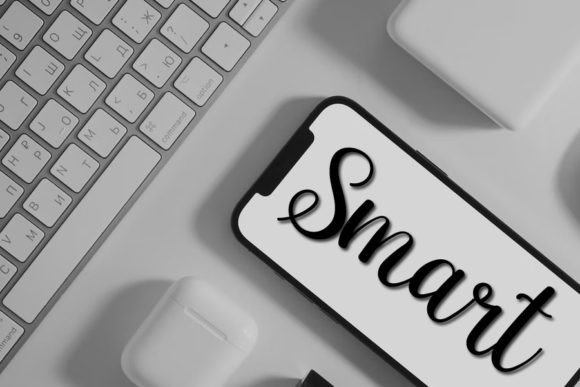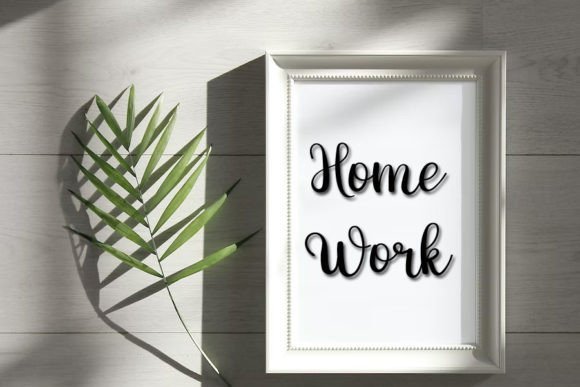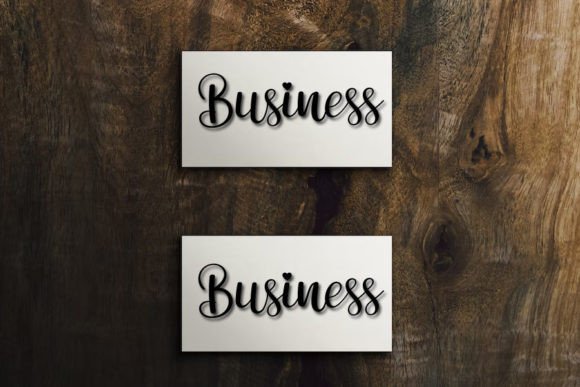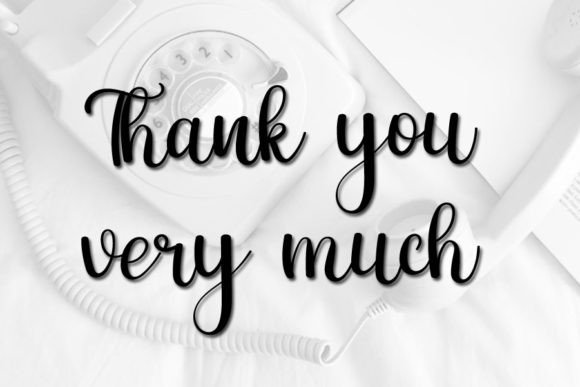
Have you ever been stuck on a design project, struggling to find the perfect font to bring your vision to life? We’ve all been there. It’s like searching for the missing piece of a puzzle, and suddenly, everything clicks into place. For me, that moment came when I stumbled upon Calling Font, a beautiful and elegant handwritten script font that has become my go-to choice for countless projects.
Calling Font is more than just a pretty face – it’s a versatile and friendly font that’s perfect for a wide range of projects, from wedding invitations to social media graphics. Its unique blend of style and sophistication makes it a valuable asset for designers looking to add a touch of personality to their work. Whether you’re a seasoned pro or just starting out, Calling Font is an excellent choice to elevate your designs and make them truly stand out.
Key Features of “Calling Font”
- Unique Characteristics: Features a unique, handwritten design with dynamic flourishes and subtle texture
Review of Calling Font
Overall, I’m quite impressed with the Calling Font, but as with any design, there are both great and not-so-great aspects. ✨
- ✨ The font’s friendly, approachable feel is perfect for informal projects, like social media or blog posts.
- ✨ The Calling Font is highly legible, even at smaller font sizes, making it suitable for a wide range of applications.
- ✨ The font’s rounded edges and smooth curves create a visually appealing and modern aesthetic.
- ⚠️ The font’s style can come across as a bit generic or unoriginal, especially in more formal or professional contexts.
- ⚠️ In certain font sizes, the font’s rounded edges can make it harder to read, especially for those with visual impairments.
Overall, I think the Calling Font is a solid choice for casual projects, but may not be the best fit for more formal or complex designs. It’s a good option if you want a clean, modern look without a lot of frills or fuss.
Calling Font is ideal for creating elegant and sophisticated designs. Here are some tips and common use cases:
- Use Calling Font for wedding invitations, event programs, and other formal designs.
- Combine Calling Font with other elegant fonts for a luxurious look.